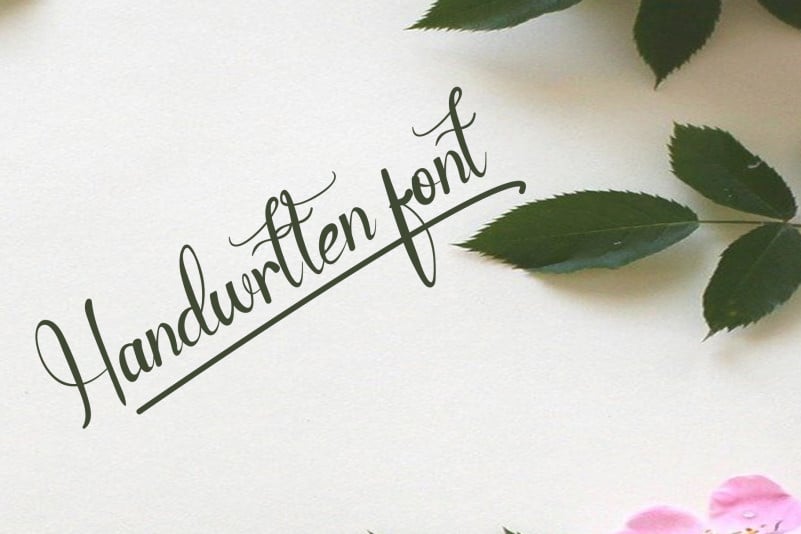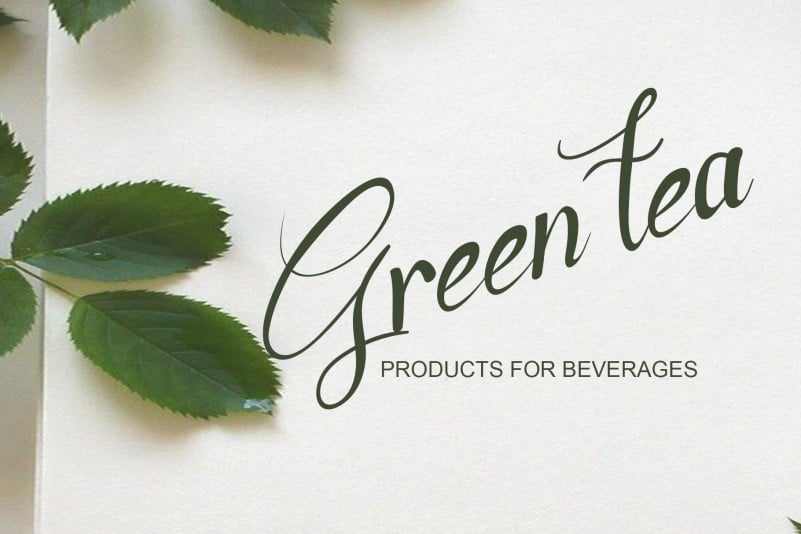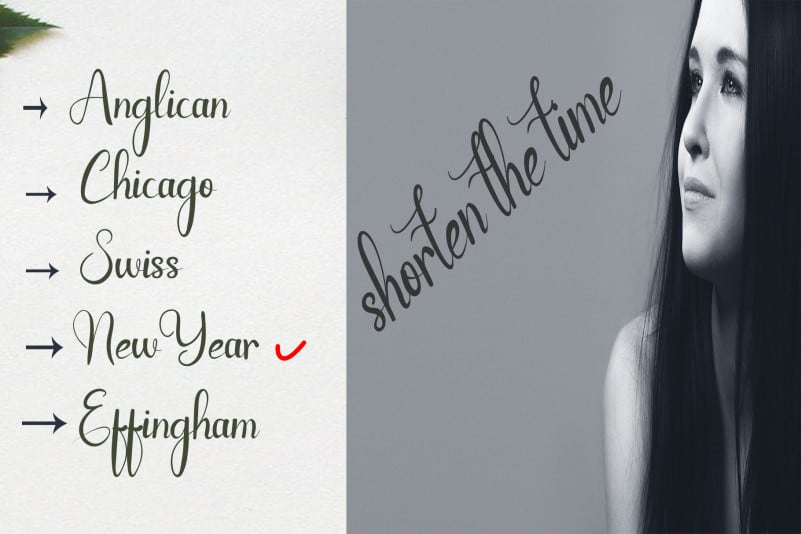
Butter Bread Calligraphy Font
Butter Bread Calligraphy Font is a simple and adaptable handwritten font. It has beautiful and well balanced characters and as a result, it matches a wide pool of designs. Fall in love with its incredibly versatile style and use it to create spectacular designs!